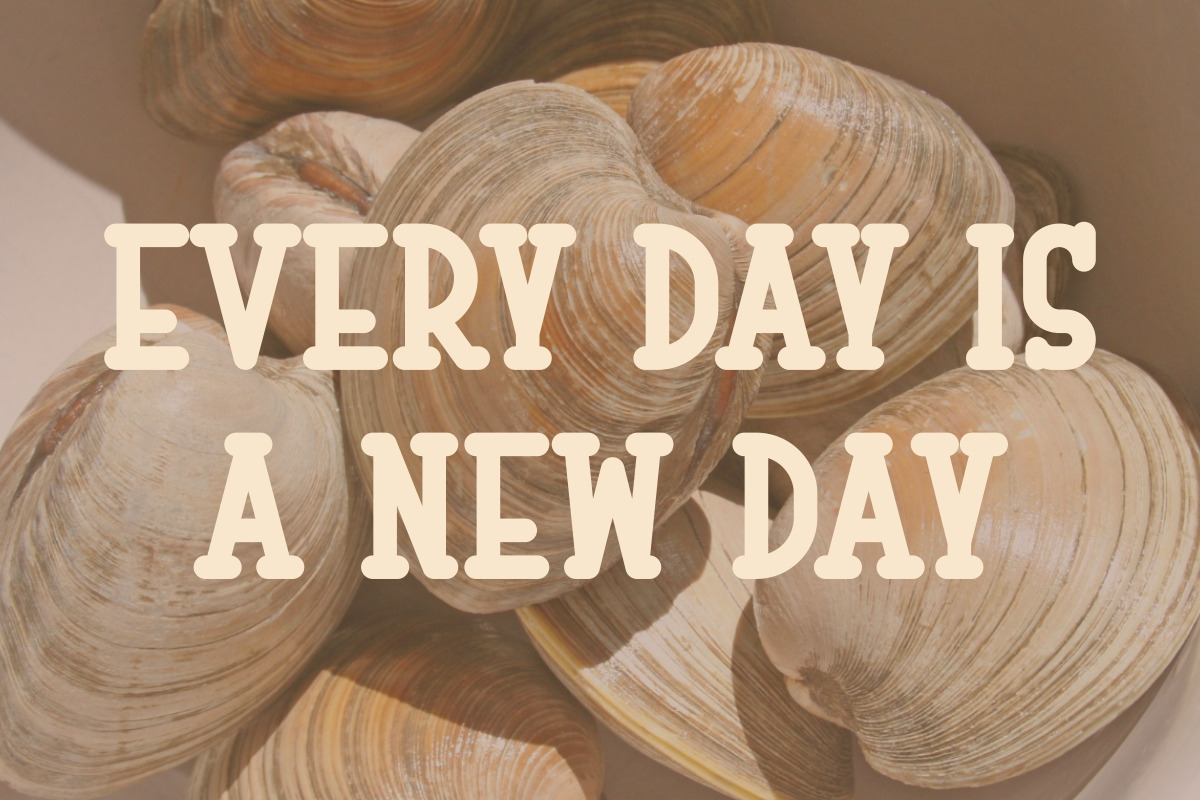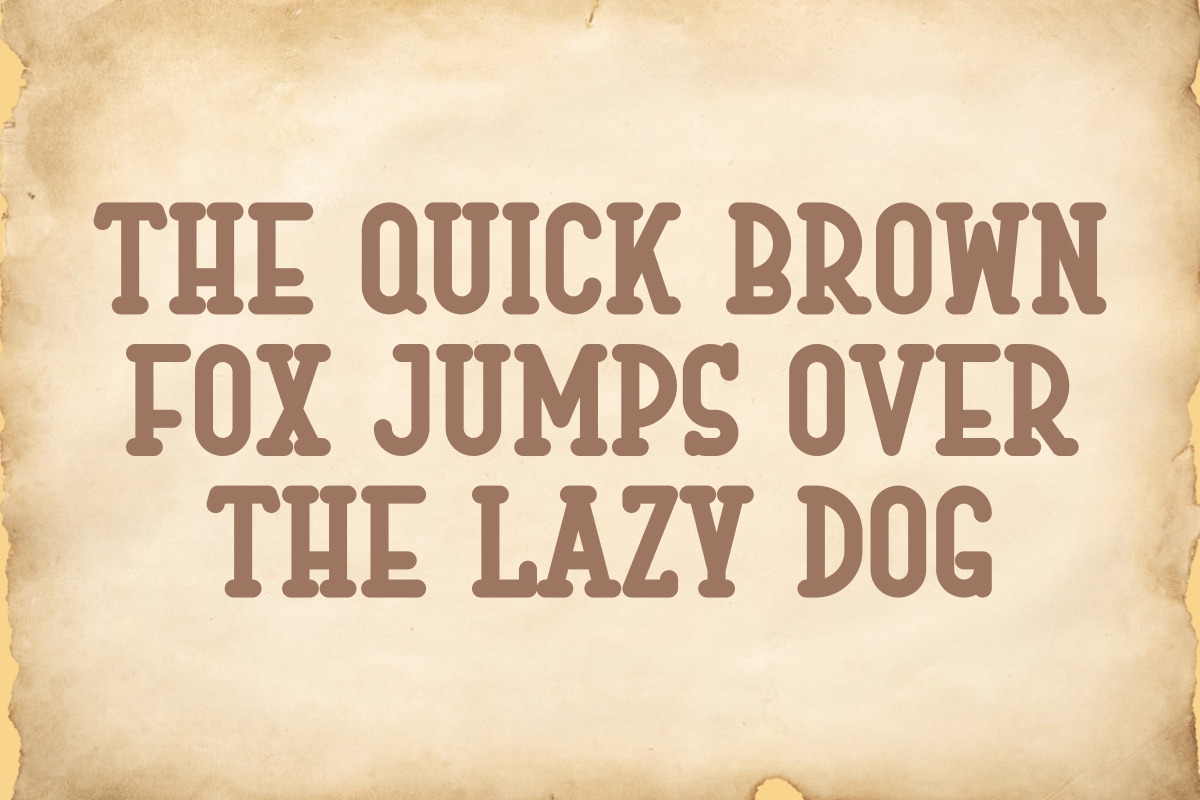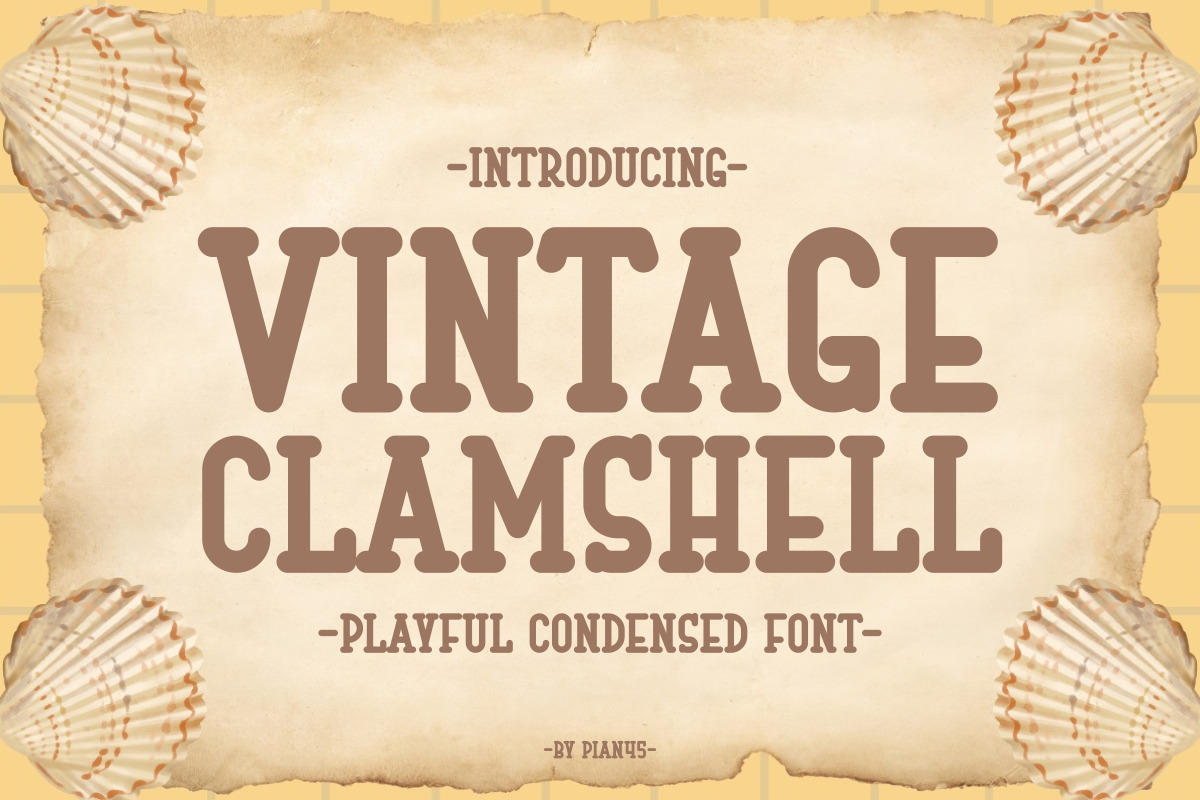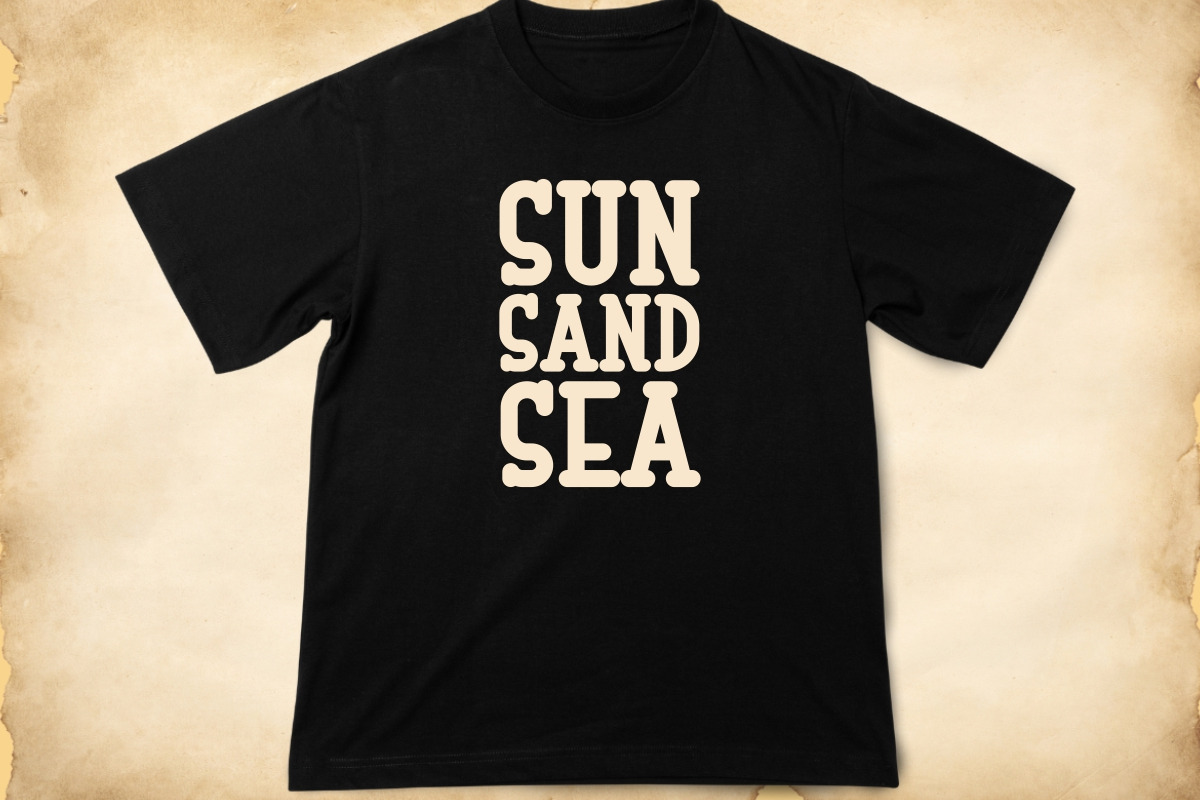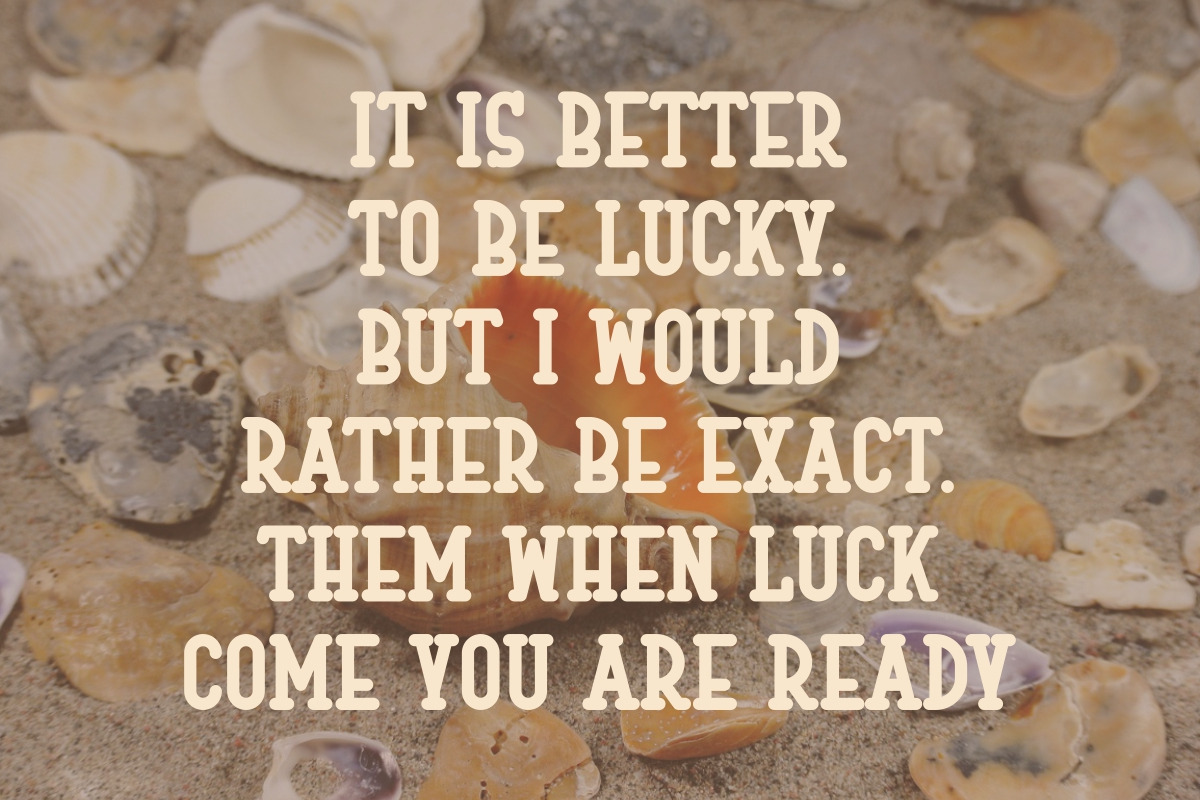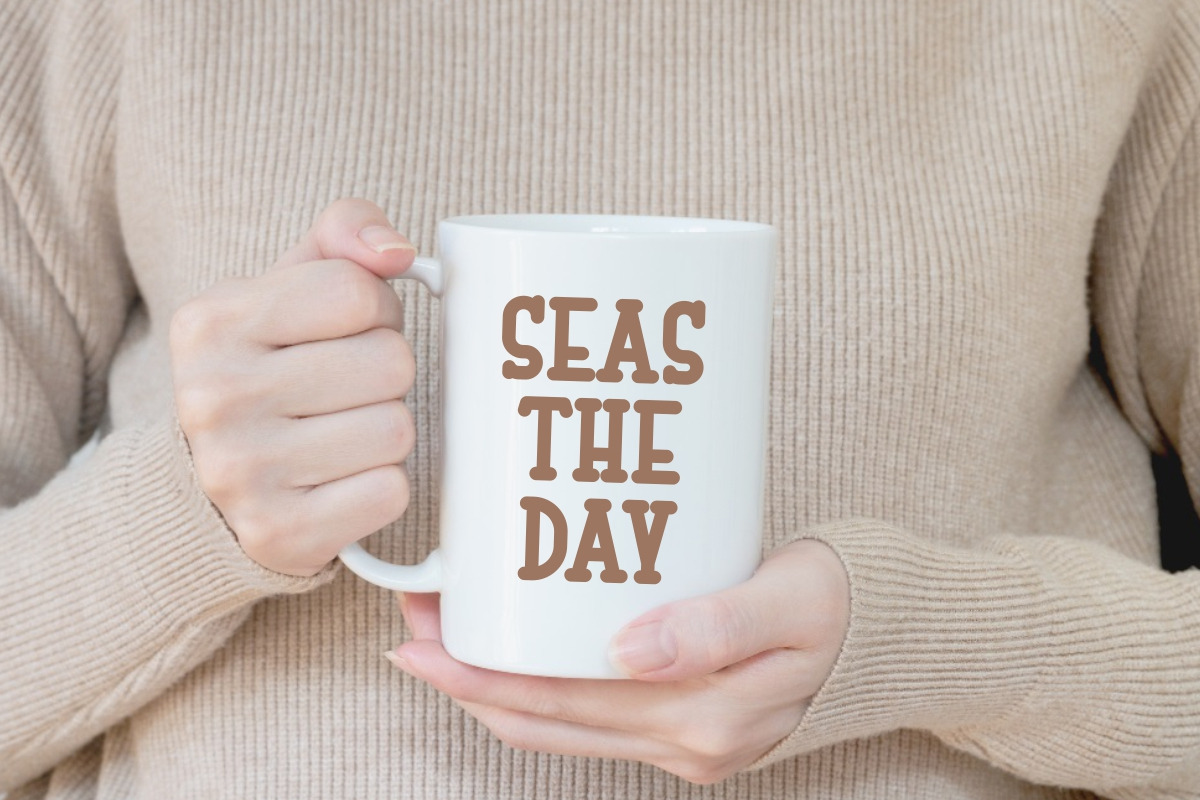
Vintage Clamshell - Playful Font
Vintage Clamshell is a charming slab serif and playful condensed font with a whimsical beach-inspired theme. This delightful font features classic coastal elements and a seashell backdrop, making it perfect for adding a fun and nostalgic touch to your designs. Perfect for quotes, posters, t-shirts, mugs, and tote bags, Vintage Clamshell combines a playful aesthetic with vintage elegance.